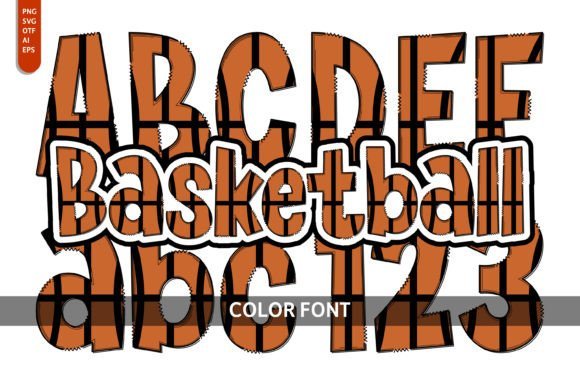
The Perfect Dribble: Unleashing the Playful Charm of Basketball Font
Remember the rush of excitement when you first picked up a marker and began creating your own masterpieces in kindergarten? The world of art and design was limitless, and every scribble seemed like a work of genius. As we grew older, our creative endeavors evolved, but the joy of self-expression remained. For designers, the perfect font can evoke that same sense of wonder and imagination.
Enter Basketball Font, a delightful, whimsical typeface designed to add a playful touch to your projects. Whether you’re crafting children’s books, posters, or invitations, this font is sure to bring a smile to your audience’s faces. Its versatility and ease of use make it a valuable asset for designers looking to inject some personality into their work.
Basketball Font Key Features
- Font Family: Basketball Font is a custom-designed font, not a standard font family.
- Size: The font is designed to be used at various sizes, from 12pt to 72pt, and is optimized for readability at different scales.
- Resolution: Optimized for high-resolution displays (Retina and above), ensuring crisp and clear text rendering.
- Unique Characteristics: Basketball Font features a bold, dynamic design inspired by basketball courts and sports graphics, with a mix of geometric and rounded shapes.
- Kerning and Ligatures: The font includes custom kerning and ligatures to ensure smooth text rendering and a cohesive visual experience.
Basketball Font Review
I was excited to dive into the Basketball Font, hoping it would be a slam dunk in terms of design. Here’s my honest review.
✨ The font’s energetic and playful vibe is perfect for sports-related projects or youth-oriented designs. The bold lines and rounded edges give it a friendly feel.
- ✨ Easy to read, even at smaller font sizes
- ✨ Versatile and suitable for various design applications
⚠️ While the font has its strengths, it can be a bit too playful for more serious or professional projects. Additionally, the font’s design may not be ideal for complex text layouts or body text.
- ⚠️ Limited font weights and styles
- ⚠️ May not be the best choice for formal or corporate designs
While the Basketball Font has its limitations, it’s still a fun and energetic font that can add a playful touch to your designs. It’s perfect for sports-related projects or youth-oriented designs, but may not be the best choice for more formal or complex projects.
Tips for Getting the Most Out of Basketball Font
Here are some tips to get the most out of the Basketball Font:
- Use it for sports-related designs, such as basketball team logos or sports-themed posters.
- Combine it with other fonts to create a unique and eye-catching design.
The Basketball Font is commonly used for:
- Basketball team logos and branding.
- Sports-themed posters and flyers. Alternatives to “Basketball Font” for Designers
- Use Basketball Font to add a dynamic and modern touch to the trophy design.
- Combine with a 3D modeling software to create a realistic trophy shape.
- Experiment with different colors and lighting effects to give the trophy a dramatic look.
- Use Basketball Font to add a bold and eye-catching element to the poster design.
- Combine with a bold color scheme and dynamic graphics to create a high-energy design.
- Experiment with different font sizes and arrangements to create a balanced and visually appealing design.
- Use Basketball Font to add a unique and personalized touch to the jersey design.
- Combine with a bold color scheme and dynamic graphics to create a high-energy design.
- Experiment with different font sizes and arrangements to create a balanced and visually appealing design.
Q: Are there any technical requirements or compatibility issues I should be aware of when using Basketball Font?